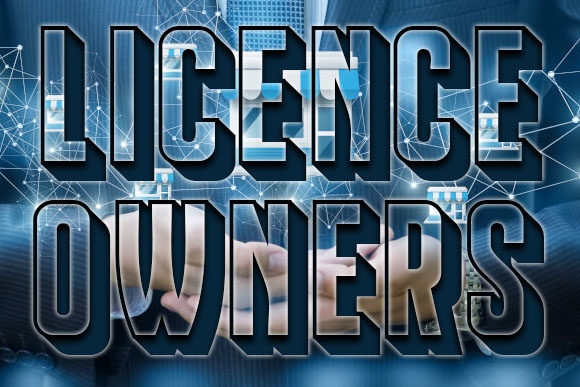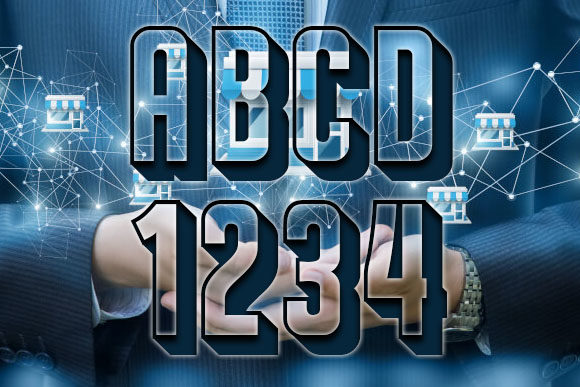
The Ultimate Guide to Franchise Font: Elevate Your Designs with a Retro Twist
I’ll never forget the time I was working on a project for a client who wanted a bold, eye-catching design that screamed “retro charm.” I spent hours scouring the internet for the perfect font, but nothing seemed quite right. That was until I stumbled upon Franchise Font, a game-changing display font that comes in regular and filled versions. In this article, I’ll share my experience with Franchise Font, its features, and how to make the most of it in your designs.
A Personal Review: What I Love About Franchise Font
Franchise Font has become a staple in my design toolkit, and here’s why:
- ✨ Retro charm: Franchise Font has a unique, nostalgic feel that’s perfect for creating designs that stand out.
- ✅ Versatility: The font comes in two versions: regular and filled. This means you can use it for a wide range of projects, from posters and flyers to social media graphics and logos.
- 💥 Impactful: Franchise Font is designed to make a statement. Its bold, chunky letters demand attention and add a touch of playfulness to any design.
While Franchise Font is an amazing addition to any design project, there are a few things to keep in mind:
- 🤔 Legibility at small sizes: As with many display fonts, Franchise Font can become difficult to read at very small sizes. Be sure to test it in different contexts to ensure it works for your project.
- ⚠️ Limited use cases: Due to its bold, attention-grabbing nature, Franchise Font might not be the best choice for body text or more formal designs.
A Practical Guide: Using Franchise Font in Your Designs
The Story Behind Franchise Font
Franchise Font was designed with one goal in mind: to create a bold, attention-grabbing font that’s perfect for making a statement. Its unique, retro charm is inspired by classic signage and advertising from the 1950s and 60s. The designer aimed to create a font that’s both nostalgic and modern, with a playful touch that’s hard to ignore.
| What type of designs is Franchise Font best suited for? | Franchise Font is perfect for designs that require a bold, attention-grabbing font, such as posters, flyers, social media graphics, and logos. |
| Can I use Franchise Font for body text? | While Franchise Font is amazing for headlines and titles, it might not be the best choice for body text due to its bold, chunky nature. |
| Is Franchise Font available in different weights or styles? | Franchise Font comes in two versions: regular and filled. This provides a good range of options for designers, but it’s not a traditional font with multiple weights. |